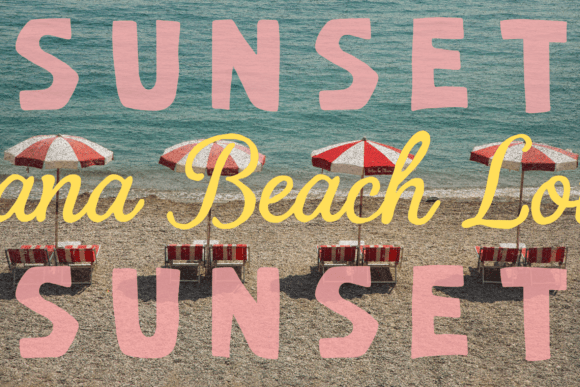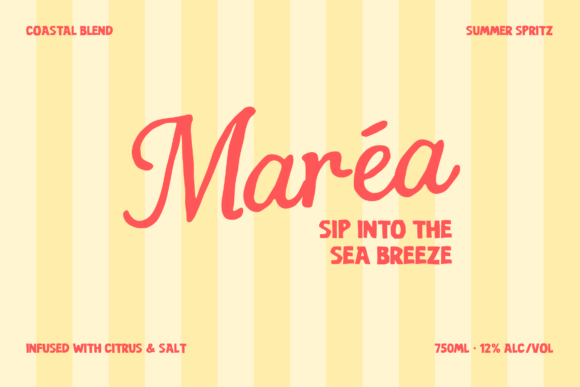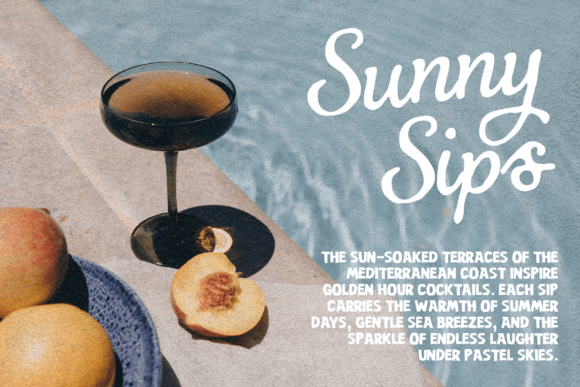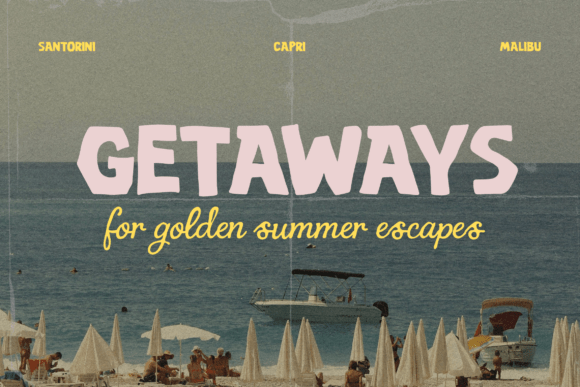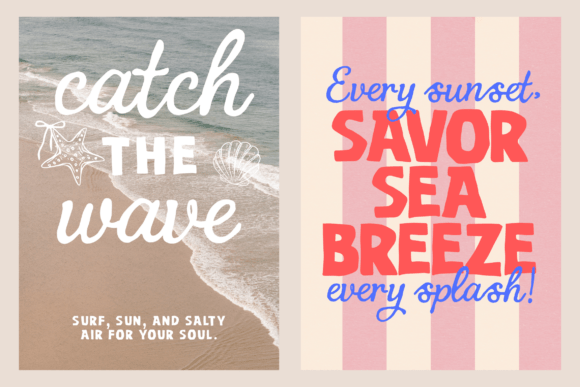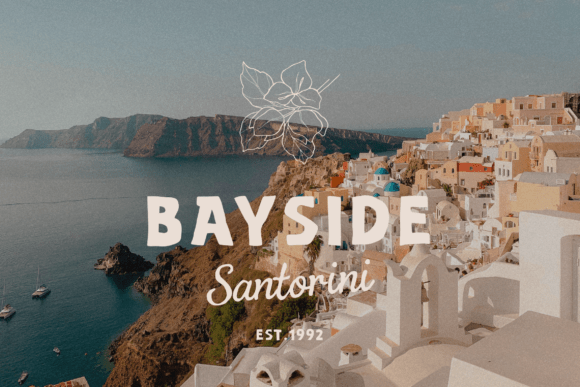
Introducing Costa Brisa Duo Font: Elevate Your Designs with a Touch of Mediterranean Charm
Are you looking to infuse your creative projects with the warmth and allure of golden beaches and retro summer aesthetics? Look no further than the Costa Brisa Duo font set. This captivating duo combines a robust, vintage sans serif and a carefree handwritten script, transporting you to the sun-drenched Mediterranean coast. Perfect for designers and crafters seeking to evoke the pleasures of a seaside getaway, Costa Brisa is an excellent choice for a wide range of applications.
A Perfect Blend of Vintage and Whimsy
The Costa Brisa Duo font set consists of two complementary fonts: Costa Brisa Bold Sans and Costa Brisa Handwritten Script. The bold sans serif font boasts a robust, vintage feel, while the handwritten script adds a touch of carefree whimsy. This delightful combination allows you to create visually stunning designs that exude a classic yet fresh appeal. The fonts’ hand-drawn irregularities, gentle curves, and remarkable versatility make them perfect for various creative projects.
Costa Brisa Duo font is an incredibly versatile typeface, suitable for a wide range of applications. Use it to create:
- Enchanting tourism posters that capture the essence of a Mediterranean paradise
- Sophisticated café emblems that evoke a sense of warmth and hospitality
- Whimsical packaging designs that stand out on store shelves
- Stunning brand logos that convey a sense of nostalgia and adventure
- Engaging social media visuals that transport your audience to a sun-kissed coastline
- Beautiful label designs that add a touch of elegance to any product
- Editorial compositions that showcase the beauty of the Mediterranean lifestyle
Comprehensive Font Set
The Costa Brisa Duo font set includes:
- Costa Brisa Bold Sans
- Costa Brisa Handwritten Script
- Upper and lower case letters
- Numerals
- Punctuation marks
- Multilingual support
Why Choose Costa Brisa Duo Font?
Costa Brisa Duo font is the perfect choice for designers and crafters seeking to create coastal and summer-inspired branding, vintage travel posters and postcards, and sophisticated designs for cafés, bars, and boutiques. This font set offers:
- A unique blend of vintage and whimsical styles
- Exceptional versatility for various design applications
- Multilingual support for global design projects
Bring the warmth and allure of the Mediterranean coast to your creative projects with the Costa Brisa Duo font set. This delightful duo offers a perfect blend of vintage and whimsy, making it an excellent choice for designers and crafters seeking to evoke the pleasures of a seaside getaway. With its exceptional versatility, comprehensive font set, and high-quality font files, Costa Brisa Duo font is sure to become a staple in your design collection.